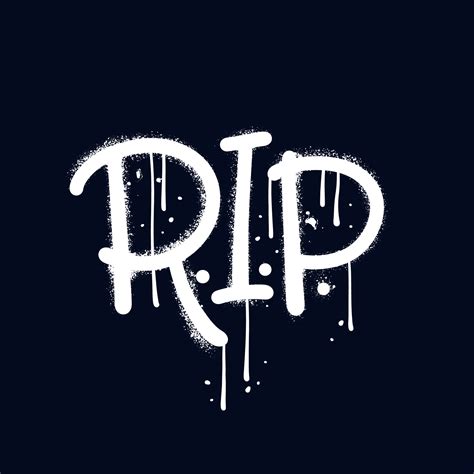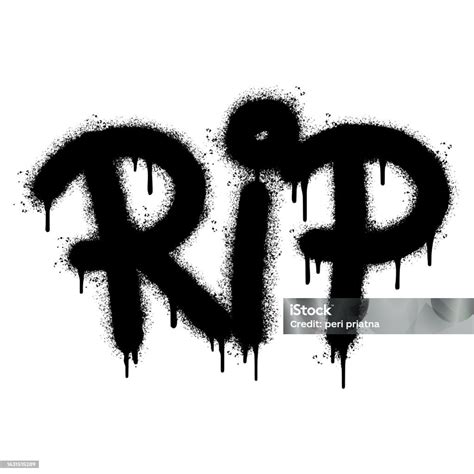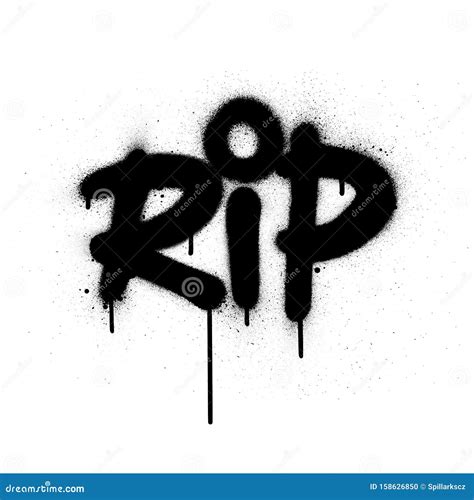
In the vibrant world of digital art and design, the Rip Images Graffiti Font stands out as a powerful tool for creators seeking to infuse their projects with an urban, edgy aesthetic. This font is not just a typeface; it's a statement, a reflection of the raw energy and creativity found in street art. Whether you're a graphic designer, a digital artist, or simply someone who appreciates the beauty of graffiti, understanding how to effectively use the Rip Images Graffiti Font can elevate your work to new heights.
Understanding the Rip Images Graffiti Font
The Rip Images Graffiti Font is inspired by the dynamic and often chaotic world of graffiti art. It captures the essence of spray-painted letters, with their irregular shapes, bold strokes, and sometimes jagged edges. This font is perfect for projects that aim to convey a sense of rebellion, creativity, and urban culture. Whether you're designing a poster for a music festival, a logo for a skateboard brand, or a t-shirt for a streetwear line, the Rip Images Graffiti Font can add that authentic graffiti feel.
Key Features of the Rip Images Graffiti Font
The Rip Images Graffiti Font comes with several distinctive features that make it a favorite among designers:
- Unique Character Design: Each letter is designed to mimic the hand-painted style of graffiti, with variations in thickness and irregular shapes.
- Versatility: Despite its edgy appearance, the font is versatile enough to be used in a variety of projects, from digital art to print media.
- Easy to Read: While it has a rough, urban look, the font remains legible, making it suitable for both small and large text sizes.
- Customization Options: Many versions of the font come with additional characters and symbols, allowing for further customization.
How to Use the Rip Images Graffiti Font in Your Projects
Using the Rip Images Graffiti Font in your projects is straightforward, but there are a few tips and tricks to help you get the most out of it.
Applying the Font in Your Design
Your text should now have the distinctive look of graffiti, adding an urban edge to your design.
Design Tips for Using the Rip Images Graffiti Font
While the Rip Images Graffiti Font is versatile, there are some best practices to keep in mind to ensure your design looks professional and impactful.
Pairing with Other Fonts
Graffiti fonts can be quite bold, so it's important to pair them with complementary fonts that balance out the design. Consider the following:
- Serif Fonts: These can add a touch of elegance and contrast to the rough edges of the graffiti font.
- Sans-Serif Fonts: These provide a clean, modern look that can complement the urban feel of the graffiti font.
- Script Fonts: For a more dynamic and artistic design, pairing with a script font can create a unique and eye-catching combination.
Color Schemes
The Rip Images Graffiti Font works well with a variety of color schemes, but some combinations stand out more than others:
- Bright and Bold: Use vibrant colors like neon greens, bright reds, and electric blues to capture the energy of street art.
- Monochromatic: A black and white scheme can emphasize the raw, unfiltered look of graffiti.
- Earth Tones: For a more grounded and natural feel, consider using earthy colors like browns, greens, and oranges.
Backgrounds and Textures
The background and textures you choose can significantly enhance the impact of the Rip Images Graffiti Font. Here are some ideas:
- Urban Textures: Backgrounds with brick walls, concrete, or metal textures can reinforce the urban theme.
- Grunge Effects: Adding grunge or distressed textures can make the text look more authentic and weathered.
The Rip Images Graffiti Font is a versatile and powerful tool for designers looking to add an urban, edgy aesthetic to their projects. Whether you’re creating a poster, logo, or t-shirt design, this font can help you achieve a unique and impactful look. By understanding its key features, following best practices, and exploring advanced techniques, you can make the most of the Rip Images Graffiti Font in your designs. So go ahead, experiment with this font, and let your creativity flow, just like the vibrant world of graffiti art.